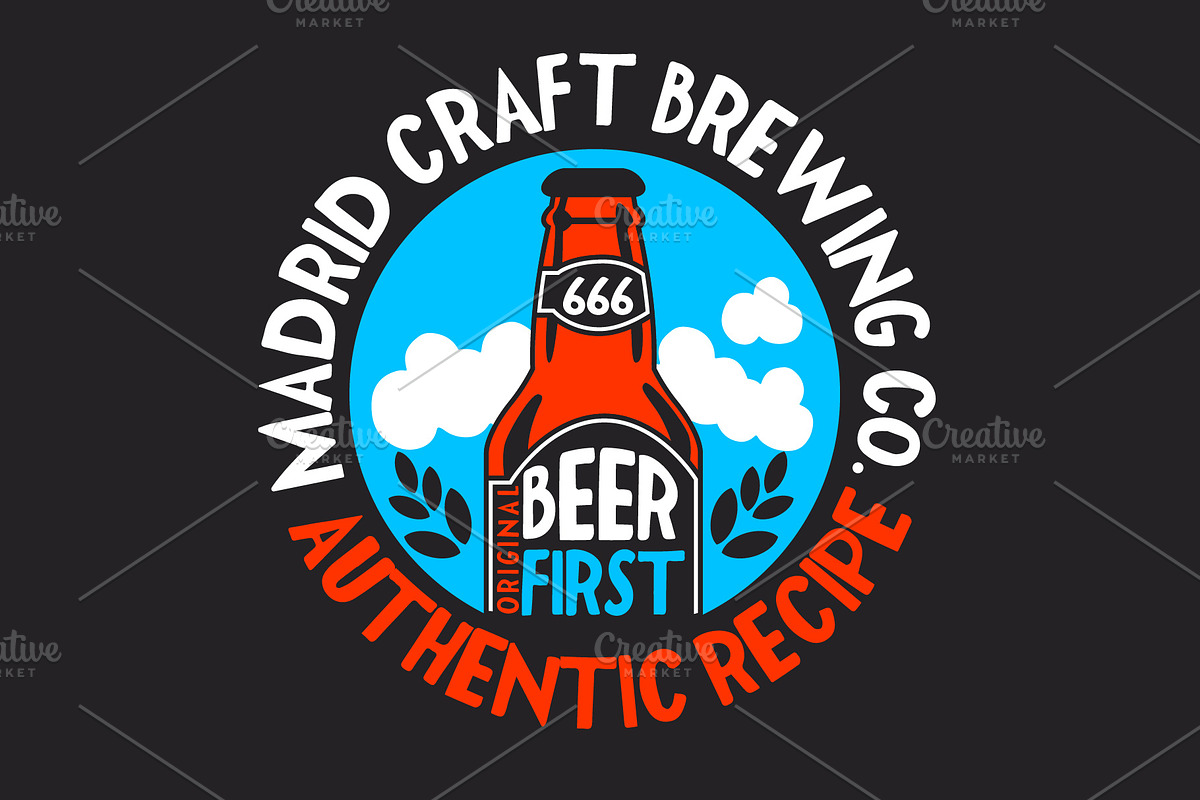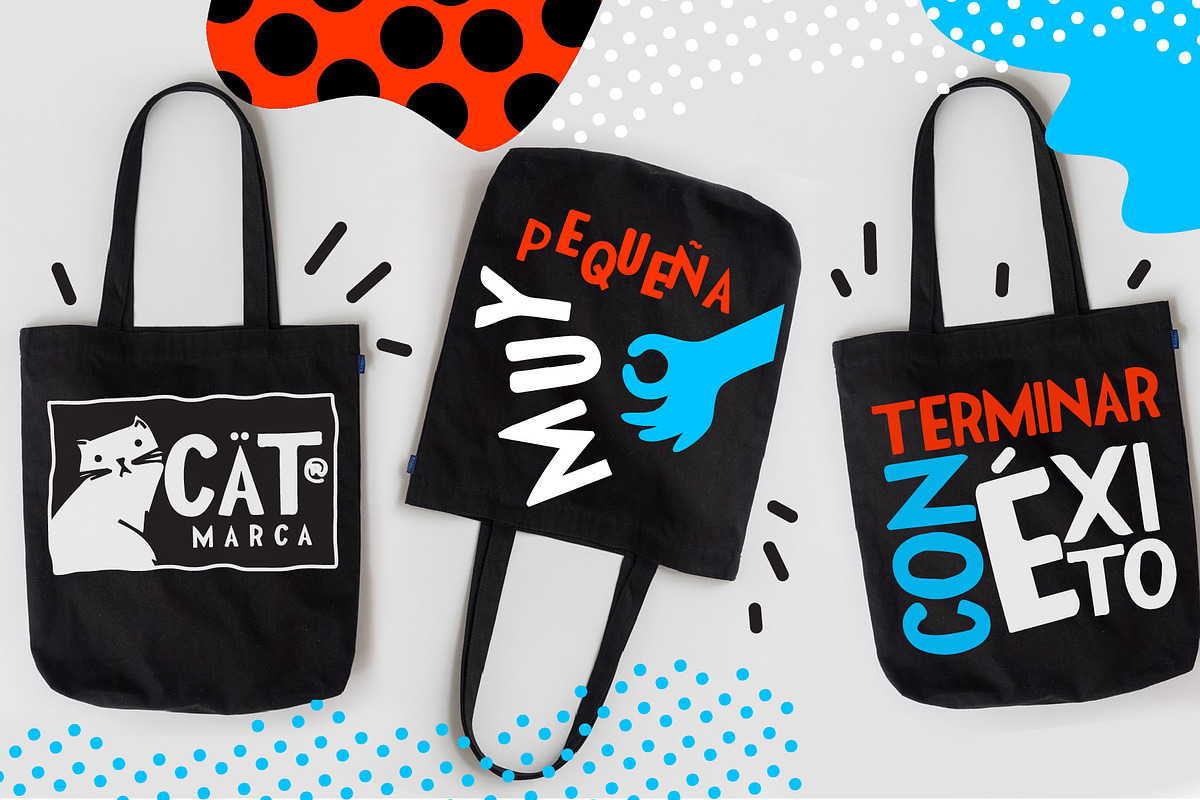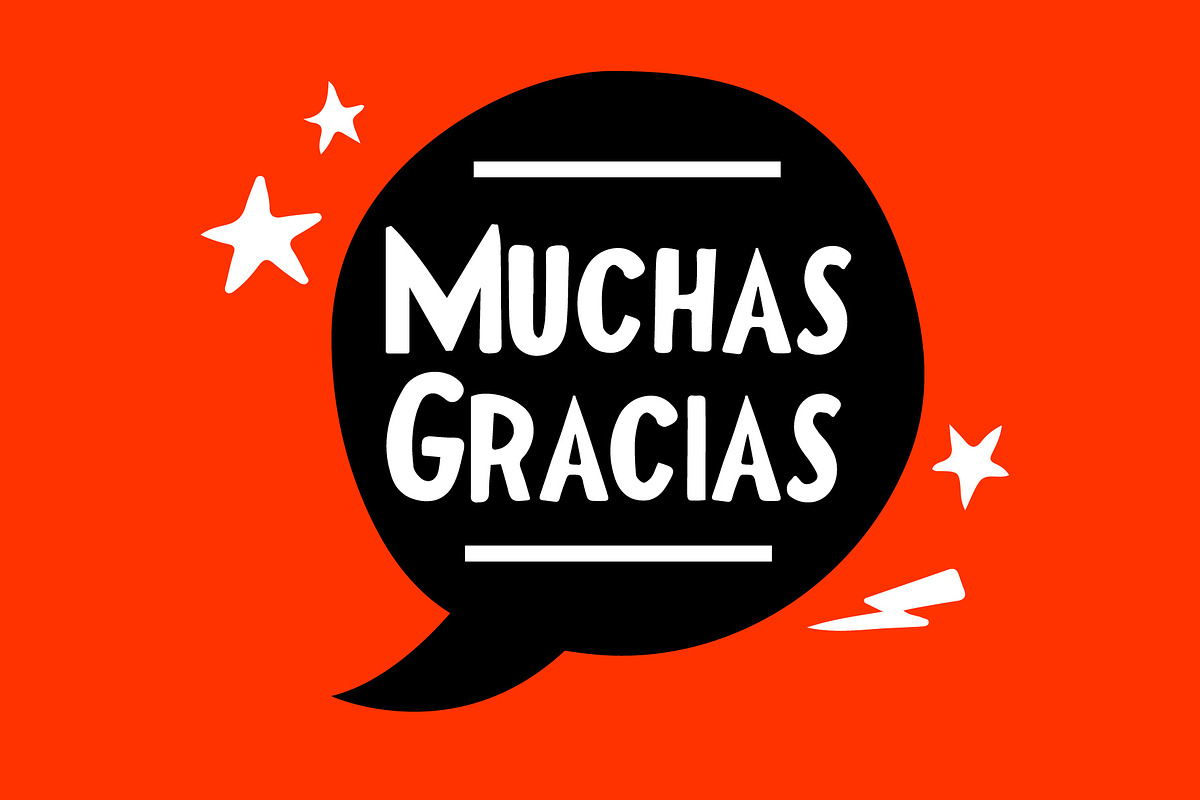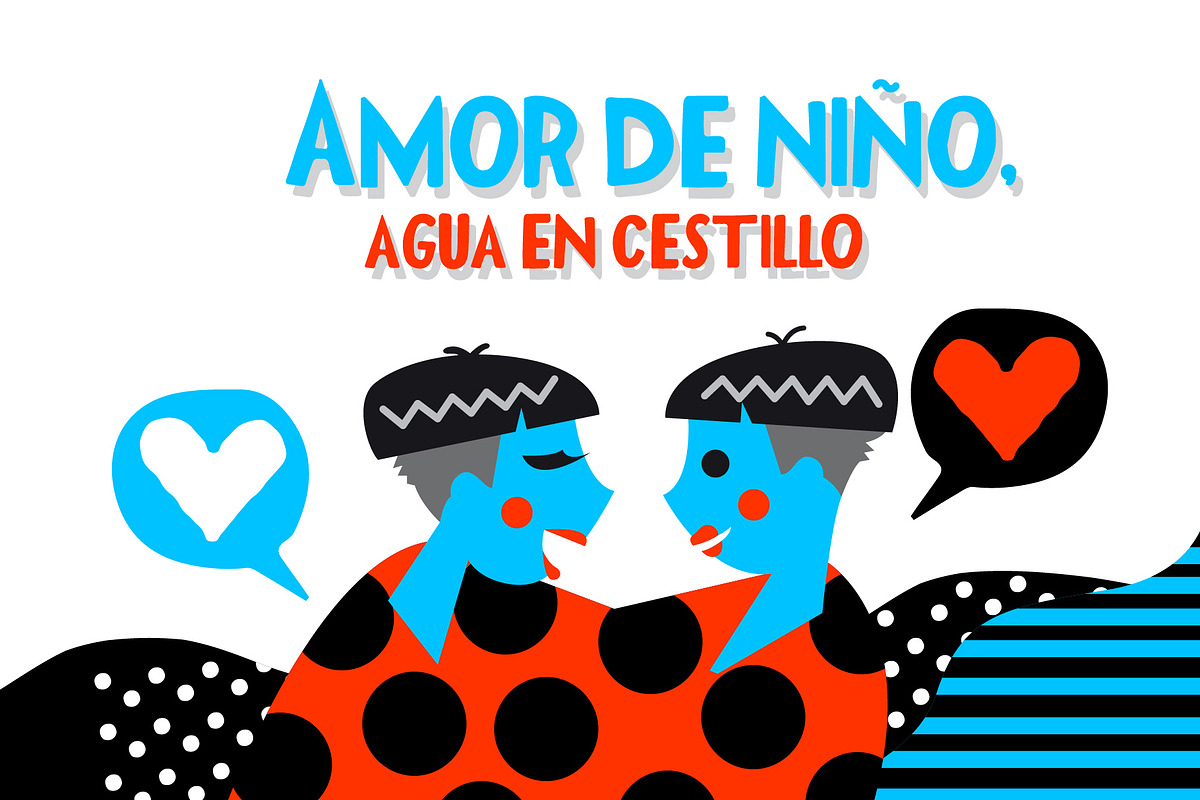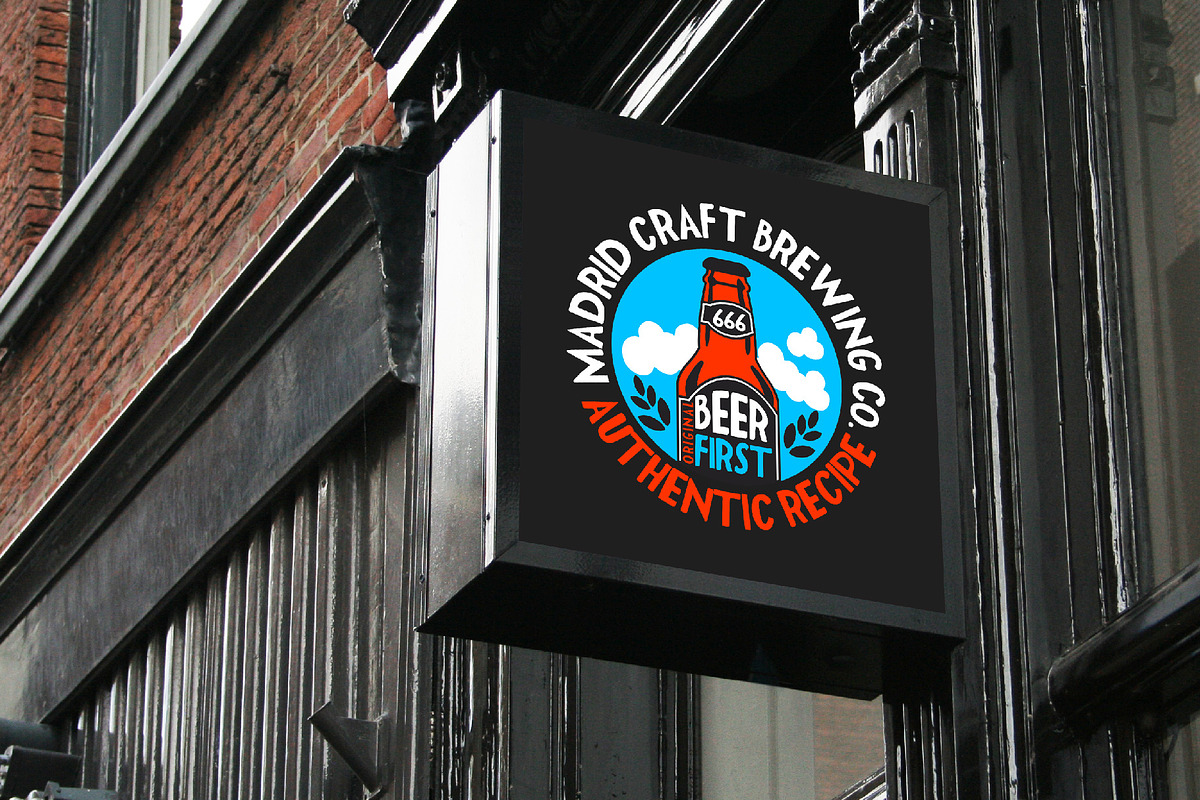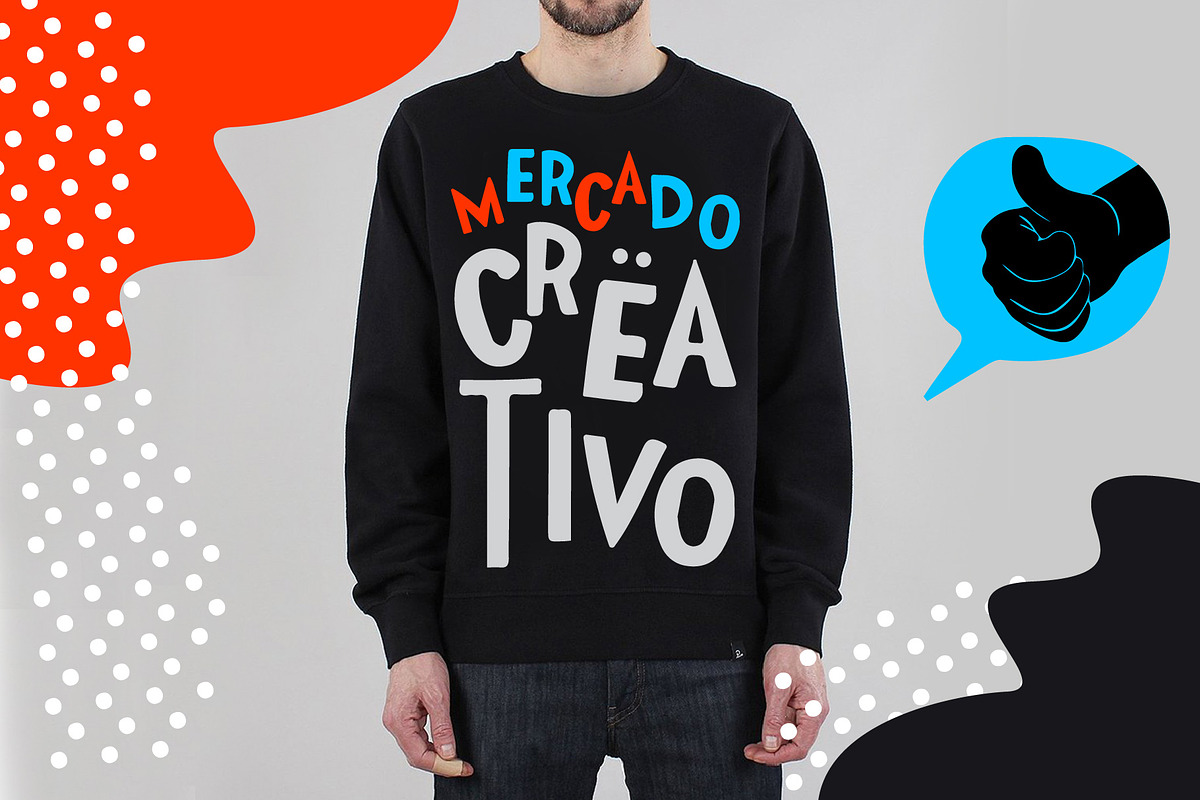
Festivo font
Festivo Font was inspired from Art Festival Poster from Spain and Italy that I ever seen. This font could help to good display, uses for labeling, clothing, art job, t-shirt design, movie sceen, band logo,film title, gigs, cover album. and many more, the sky is your limit. It comes with 240++ characters included Uppercase, Lowercase, Numbers, Punctuations, Currency, and Accents. ;)
Festivo font by fopifopi fits naturally into Branding, posters, packaging, typography.